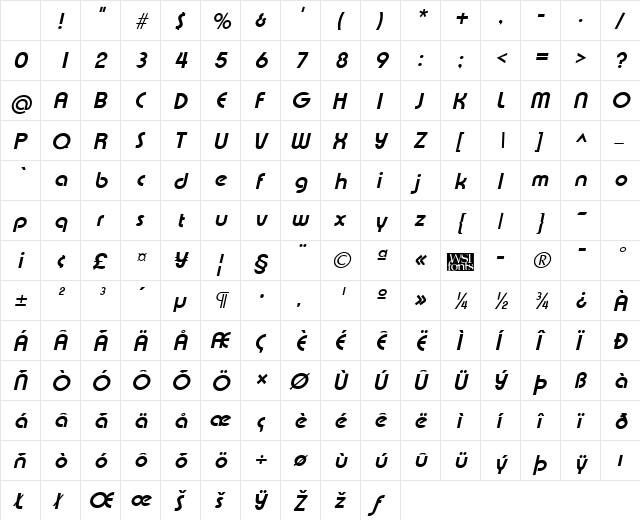
Xpressive Bold Italic
Complete Xpressive Bold Italic glyph index. Displaying only characters natively supported by Xpressive Bold Italic font.
Design Context for Xpressive
Xpressive is a composed and adaptable typeface that performs quietly and consistently across a wide range of design contexts. The slanted form adds forward momentum and visual energy. Its bold stroke weight gives it real presence on the page.
Pro Tip: Use Xpressive for emphasis, pull quotes, and subheadings where its slanted energy can add rhythm to the layout.